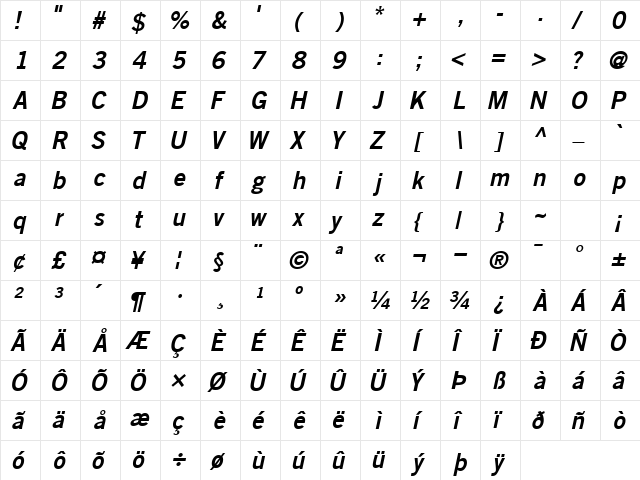
CommerceSSK SemiBoldItalic Font Preview
CommerceSSK SemiBoldItalic
Design Context for CommerceSSK Typeface
CommerceSSK is a composed and adaptable typeface that performs quietly and consistently across a wide range of design contexts. The slanted form adds forward momentum and visual energy. Its bold stroke weight gives it real presence on the page.